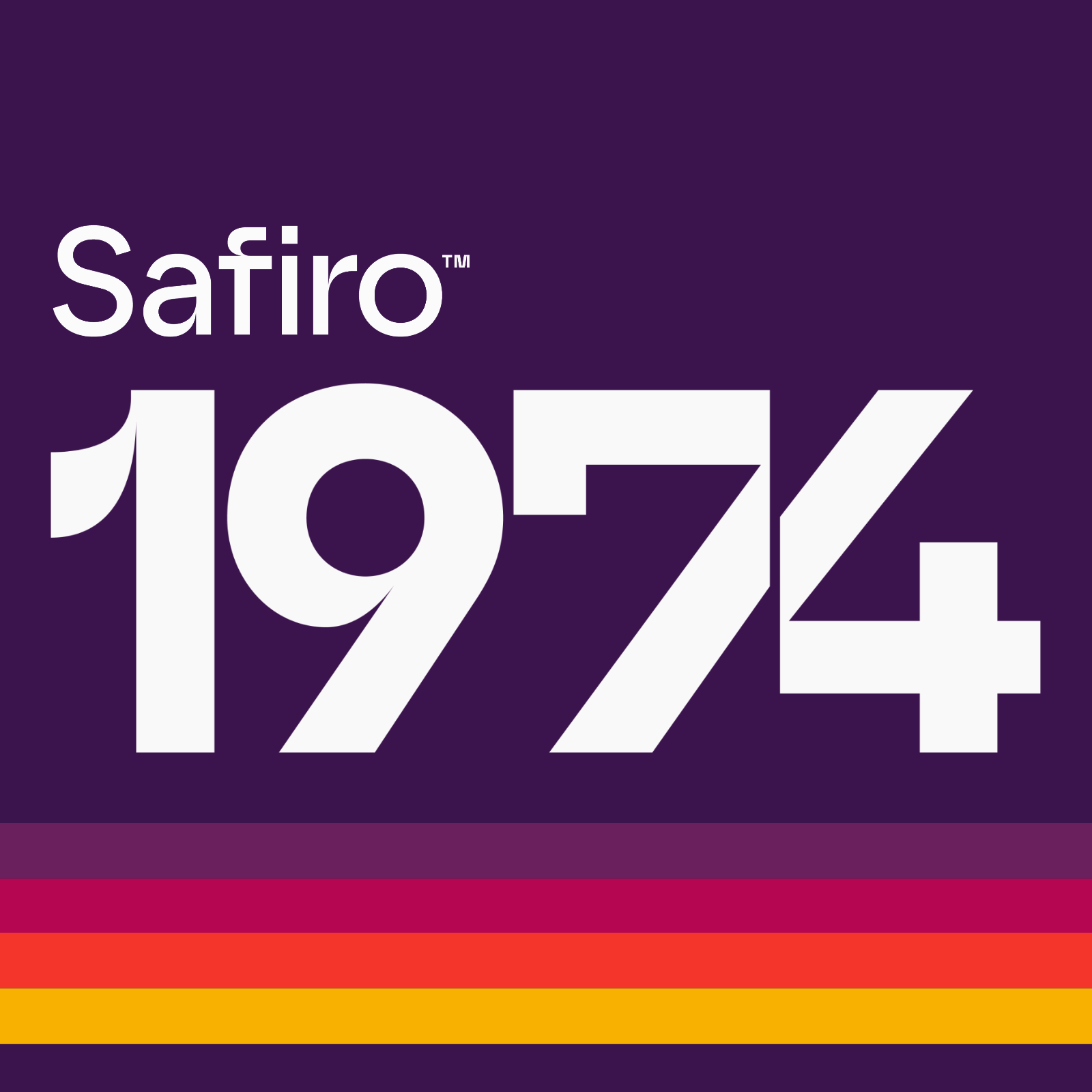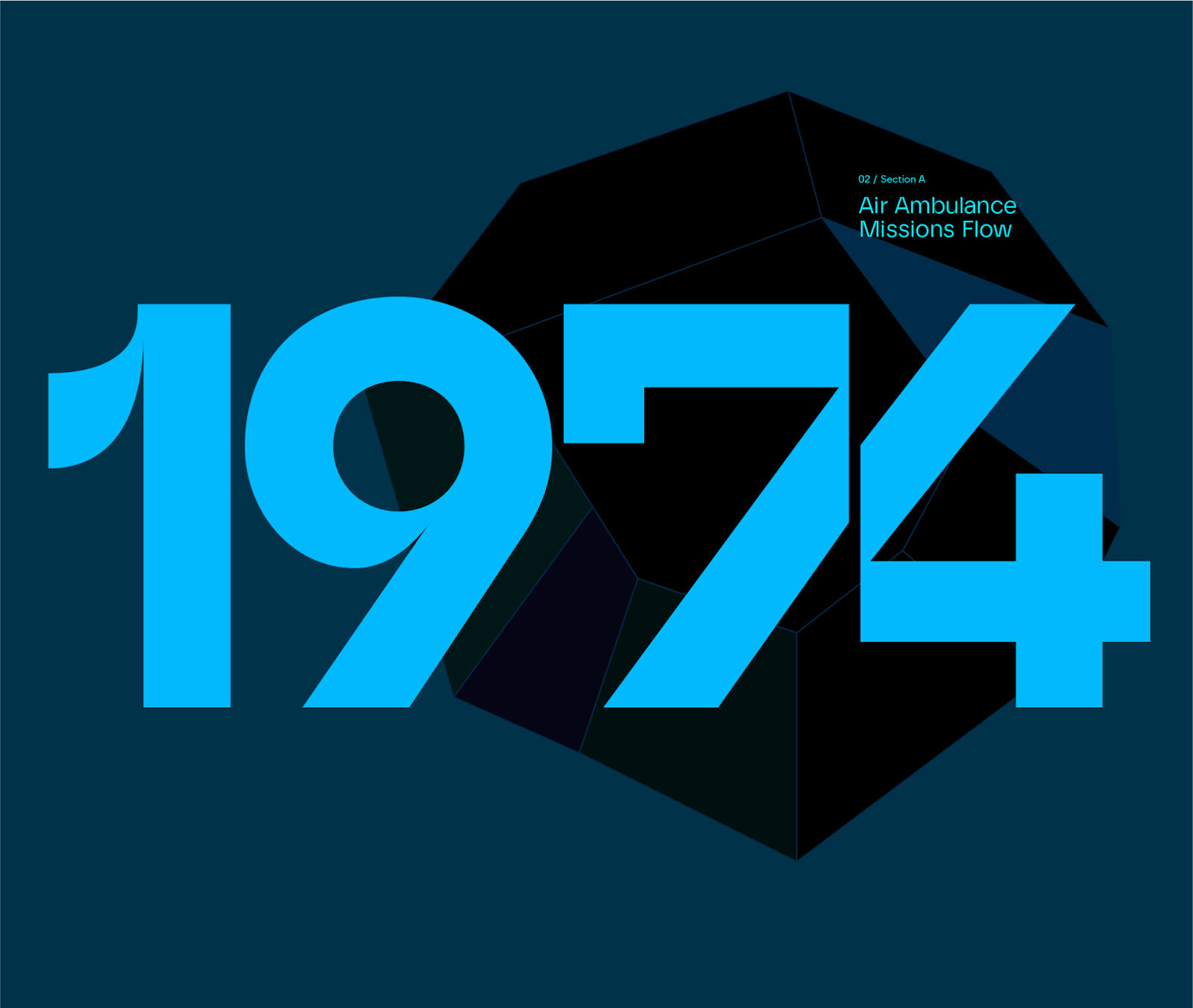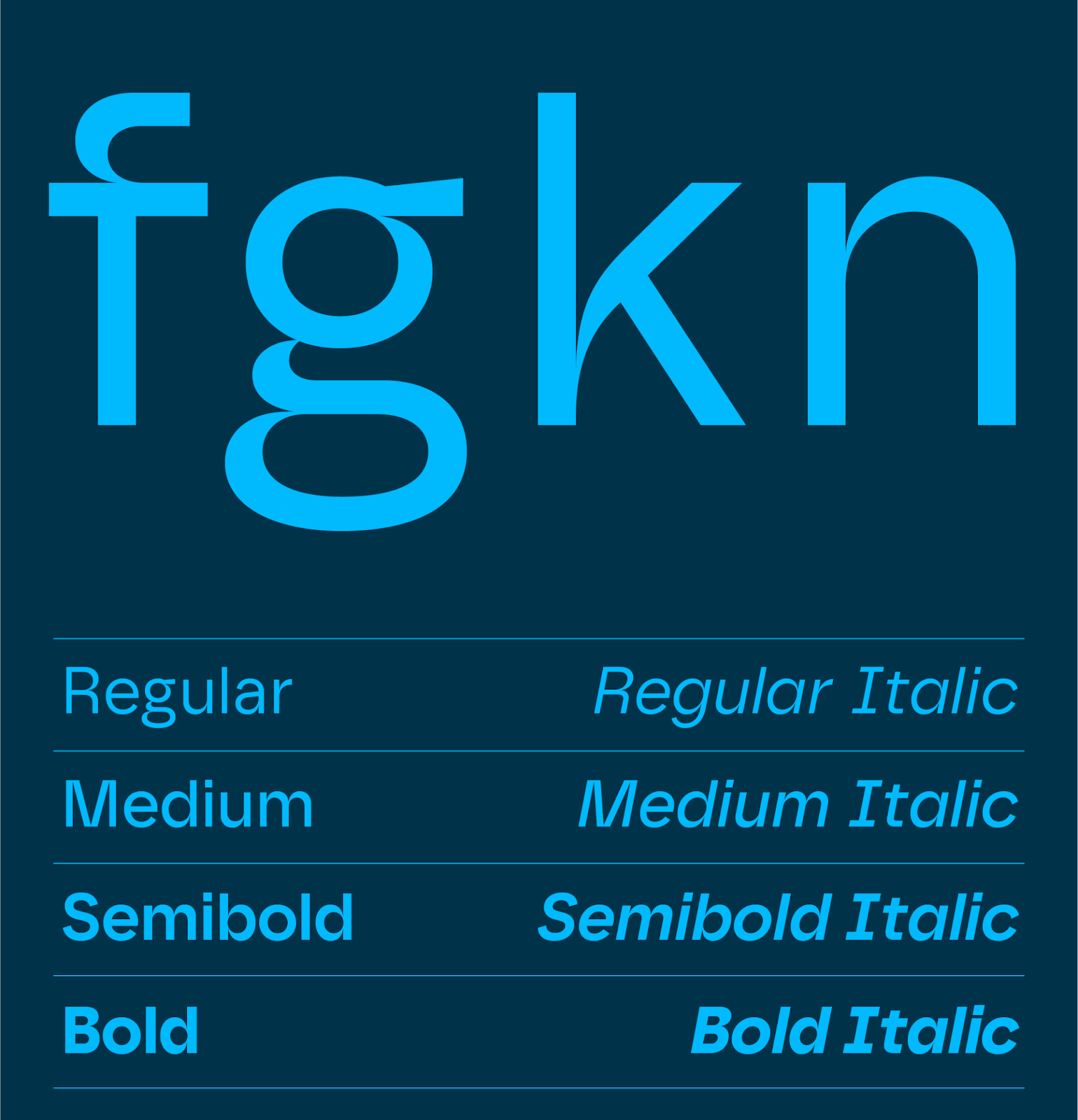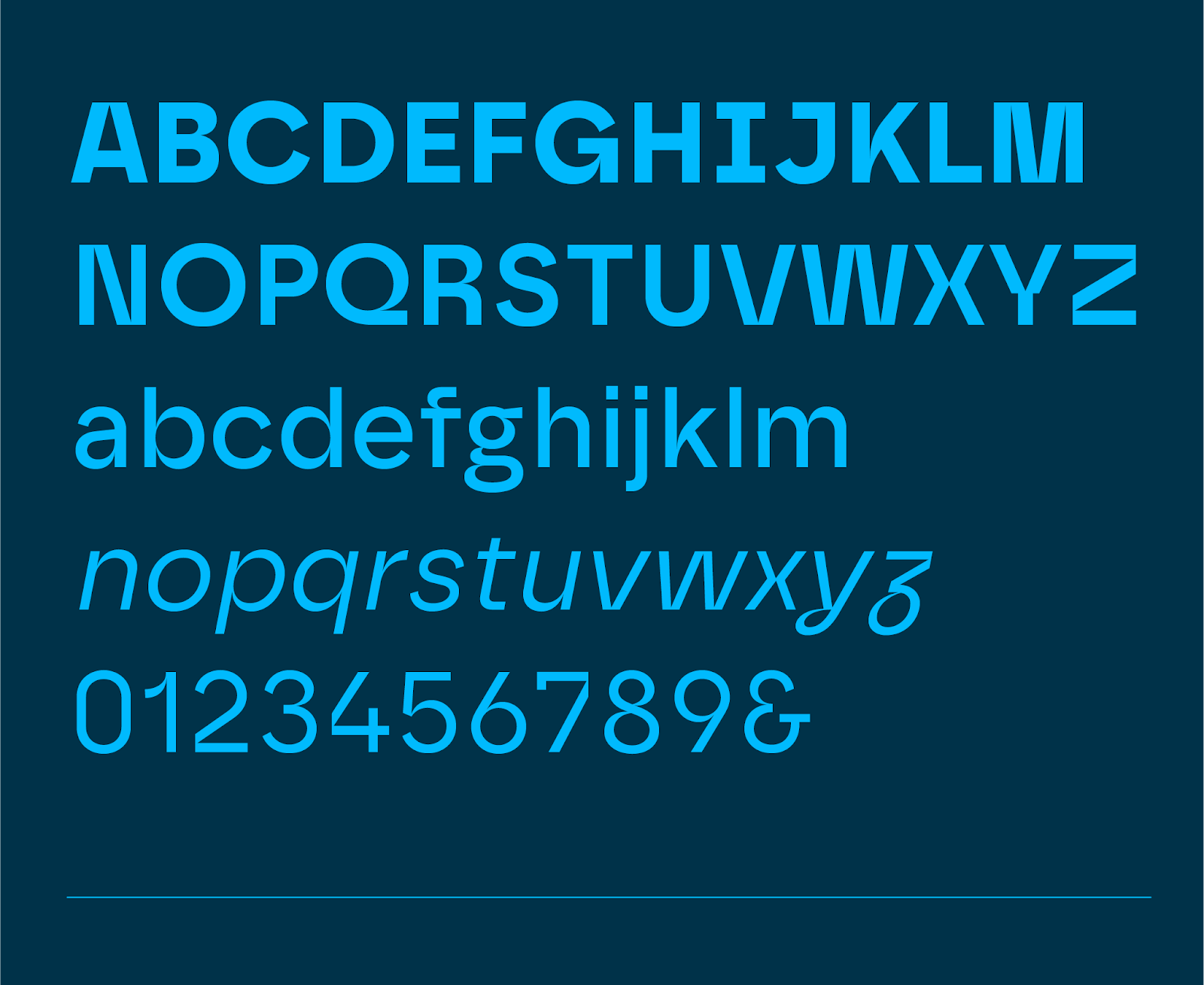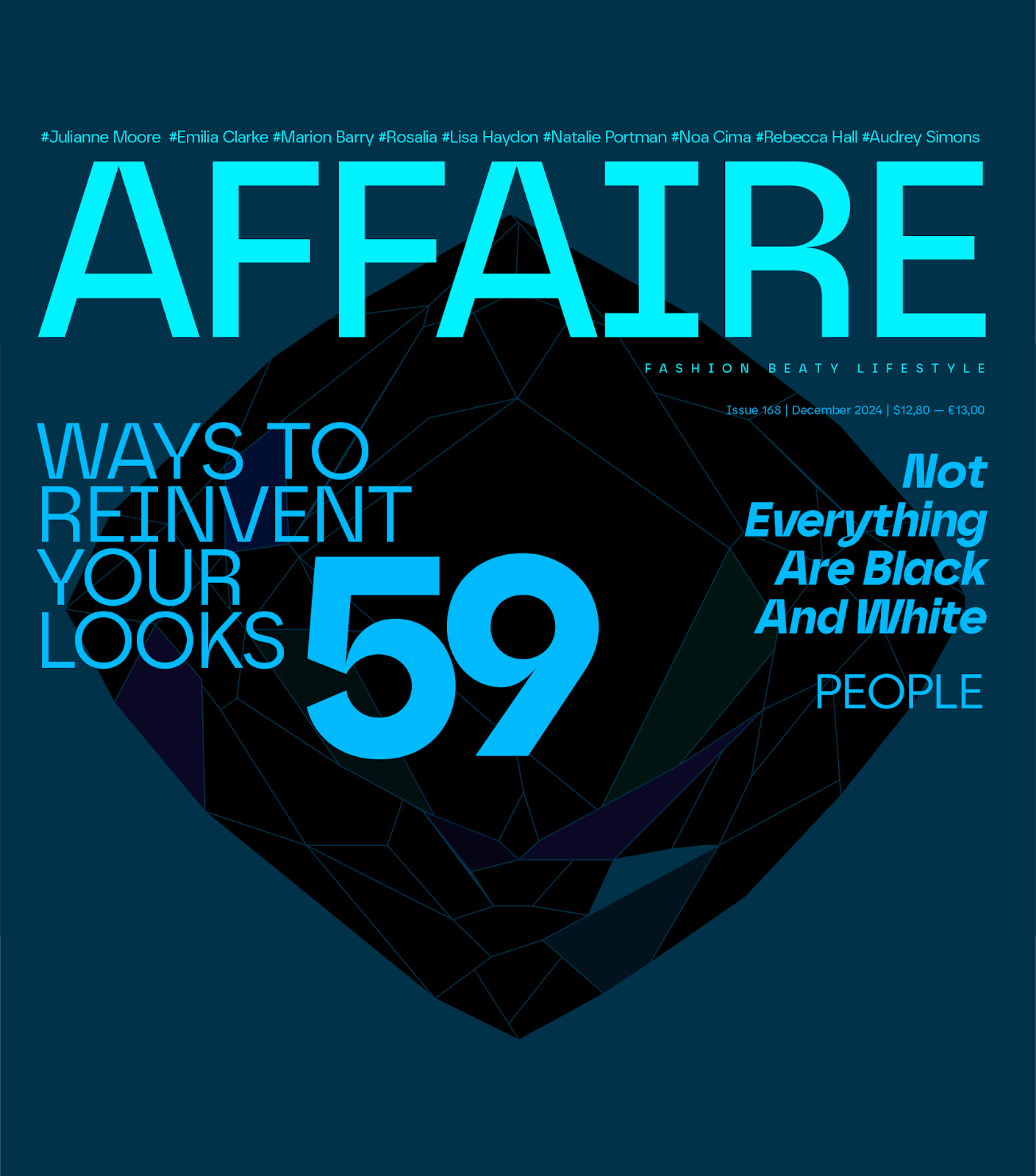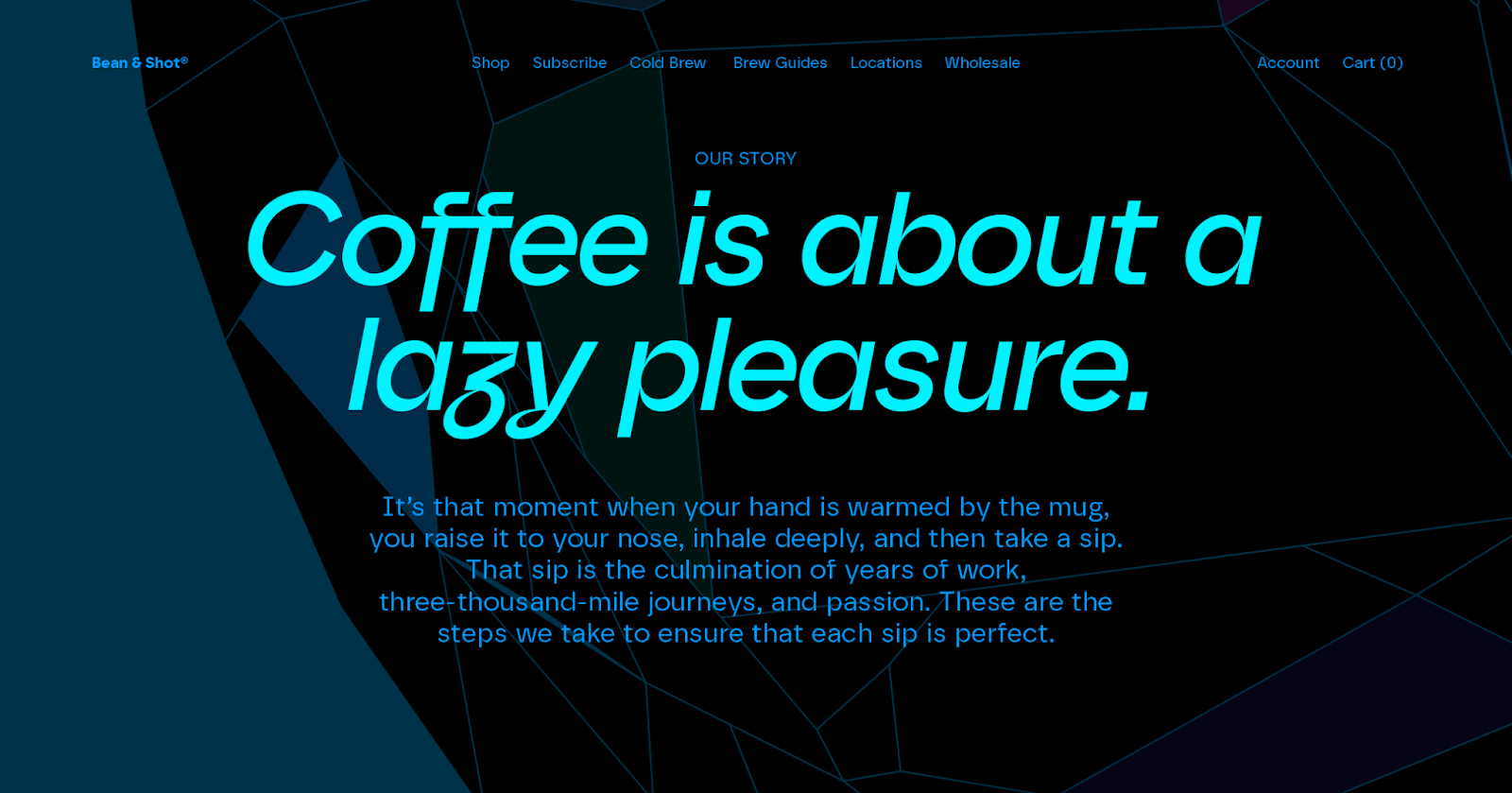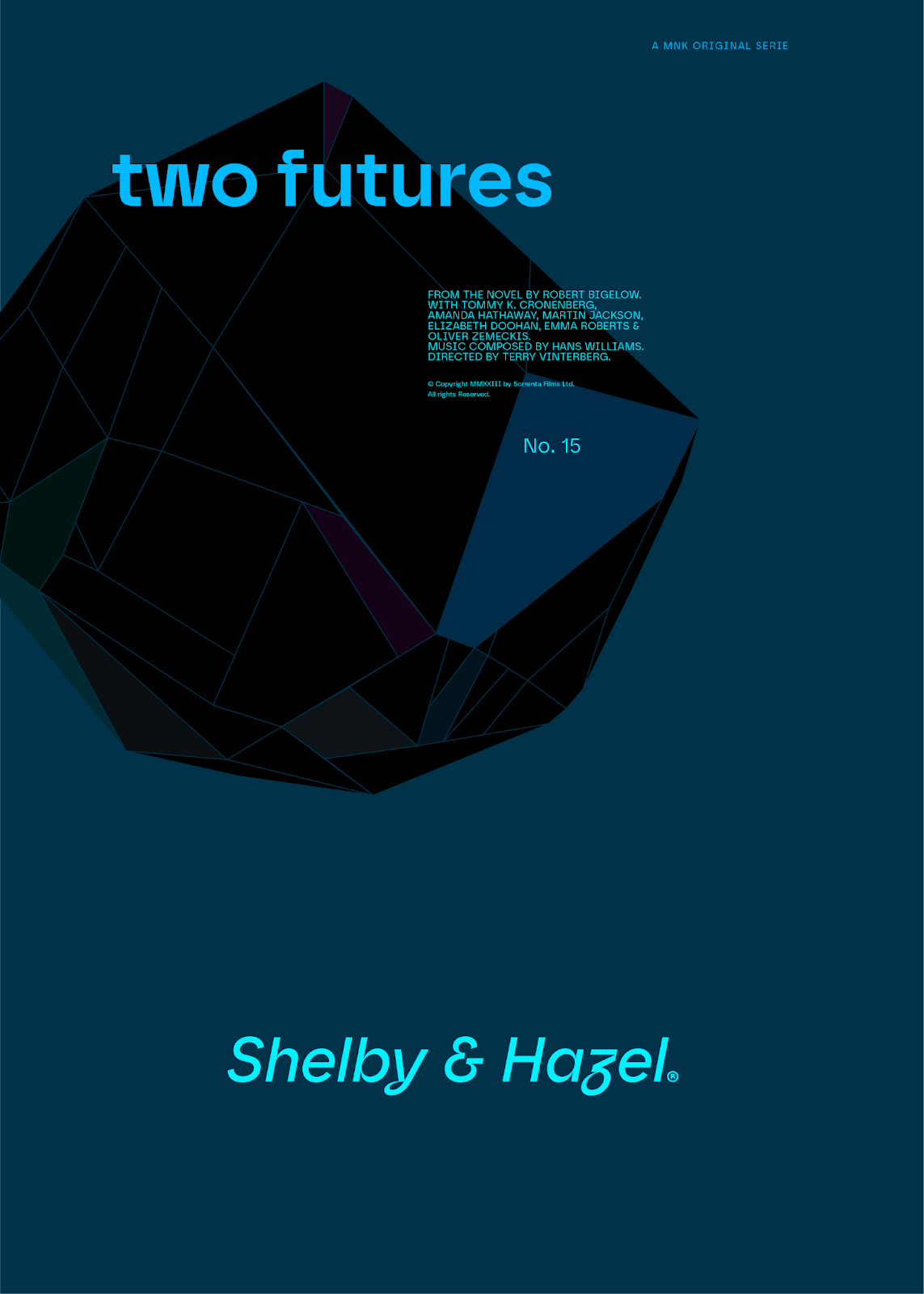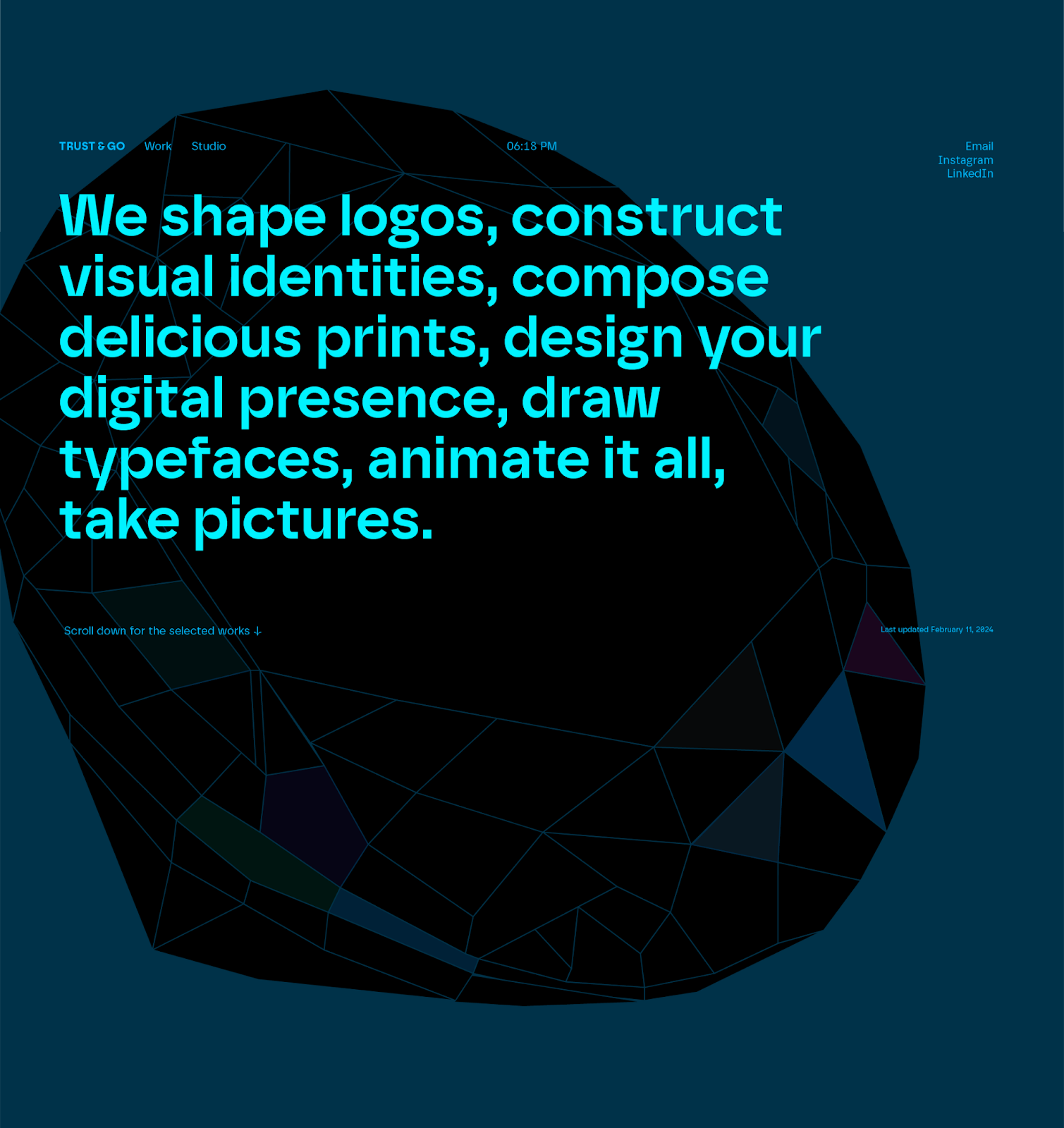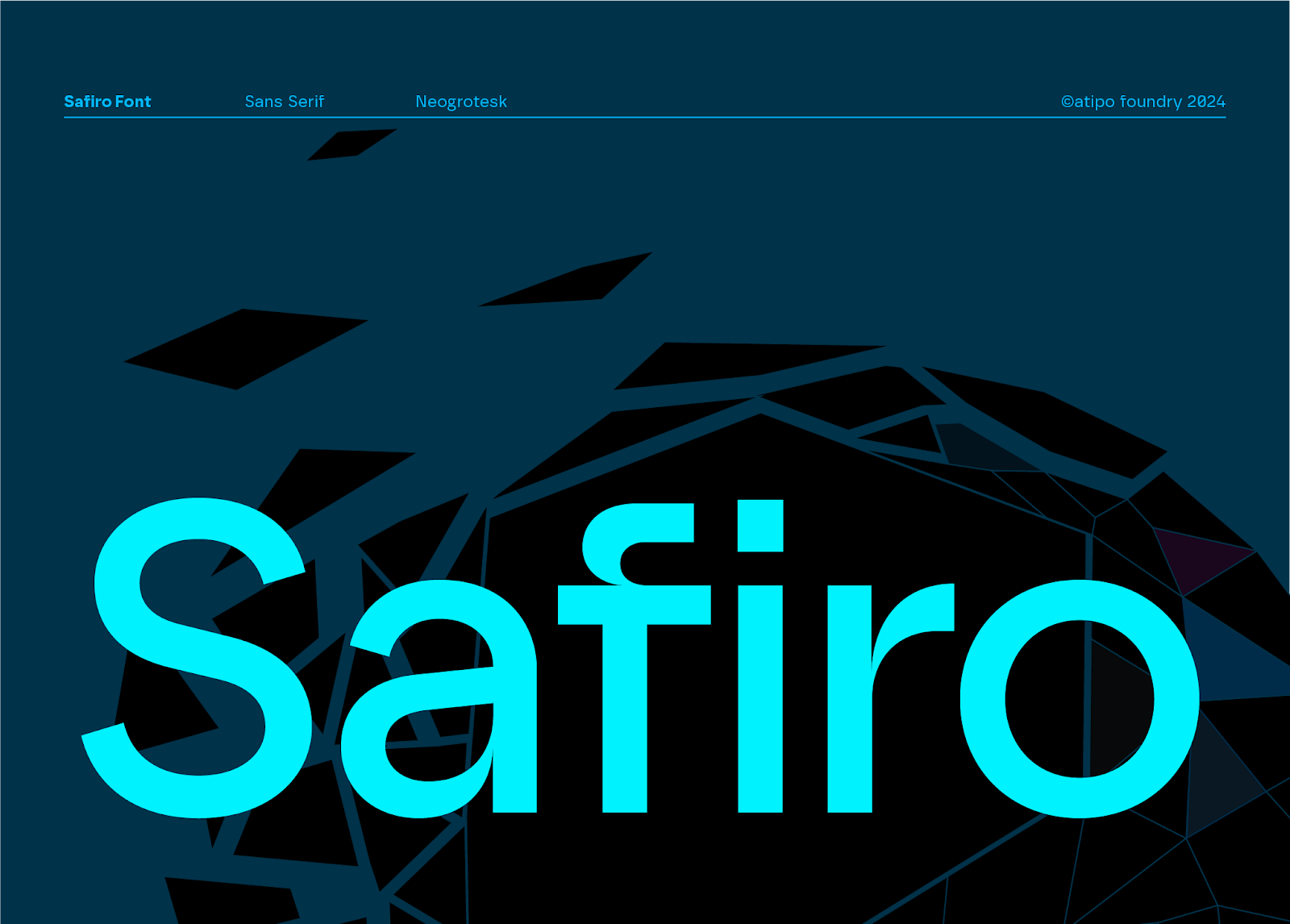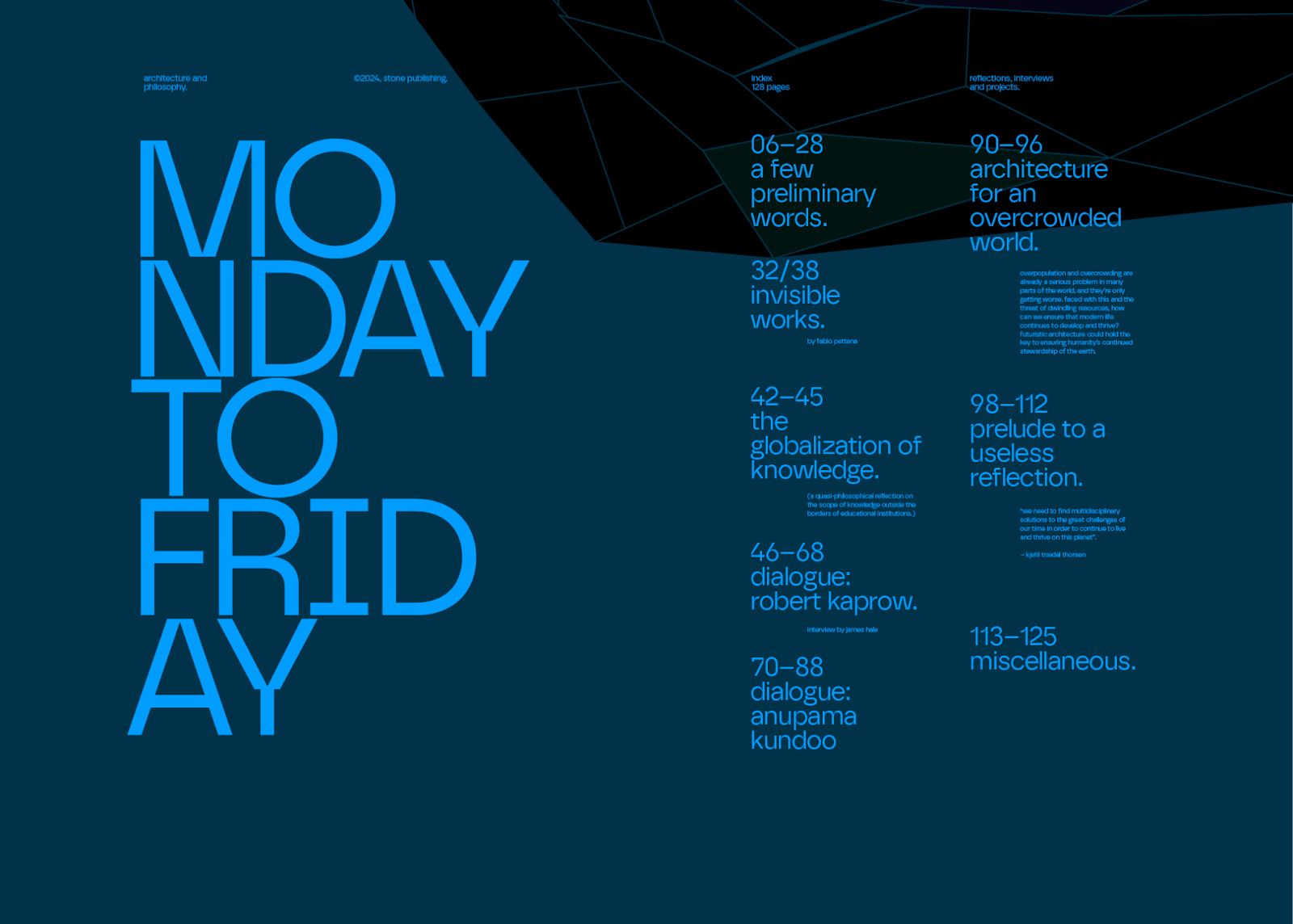
Safiro Font: Mastery in Font Design & Typography
Explore the elegance of Safiro font, a masterpiece in font design and typography, perfect for branding, editorial, and web design. Discover its unique neogrotesque style.
In the ever-evolving world of design, the Safiro font emerges as a standout example of how typography can profoundly influence branding and visual identity. Created by the renowned type foundry atipo®, Safiro is not just a font; it's a testament to the power of design when art meets precision.
This sans-serif family is a brilliant showcase of the neogrotesque style, grounded in rationalist principles yet reimagined through a modern lens. The creators have masterfully balanced the proportions of each letter, achieving an exquisite blend of technical accuracy and aesthetic grace. This balance gives Safiro a distinctive personality, setting it apart in the realm of font design.
One of Safiro's most compelling features is its stroke contrast, which adds depth and character without overwhelming the design. This subtlety ensures that the font retains its elegance across various applications, from the digital screen to the printed page. It's this versatility that makes Safiro an excellent choice for a wide range of projects, including logo creation, branding efforts, editorial layouts, packaging designs, and web interfaces.
The Safiro family is impressively comprehensive, offering eight weights that range from Regular to Bold. This spectrum of weight options, coupled with true italics, provides designers with unparalleled flexibility. Whether crafting a minimalist logo or a dynamic web page, Safiro adapts effortlessly, underscoring the content with its unique charm.
In a world where brands strive to stand out, Safiro offers a foundation for creating identities that resonate. Its unique blend of elegance and functionality makes it a precious tool in a designer's arsenal. As we explore the possibilities Safiro brings to the table, it's clear that this font is not just about creating words on a page; it's about crafting experiences that engage and inspire.
In conclusion, Safiro is more than a font; it's a milestone in font design and typography, demonstrating how thoughtful design can elevate communication in any medium. Its contribution to the visual language of our time will undoubtedly be cherished by designers and brands looking to make a lasting impression.